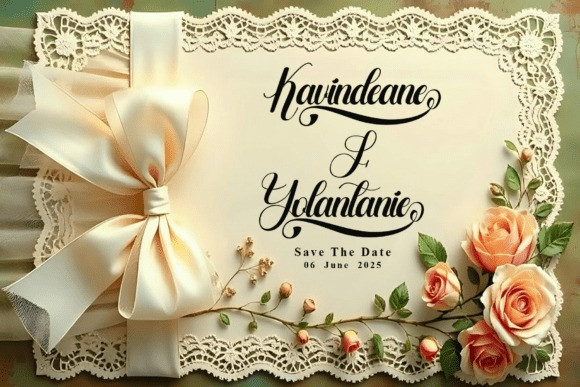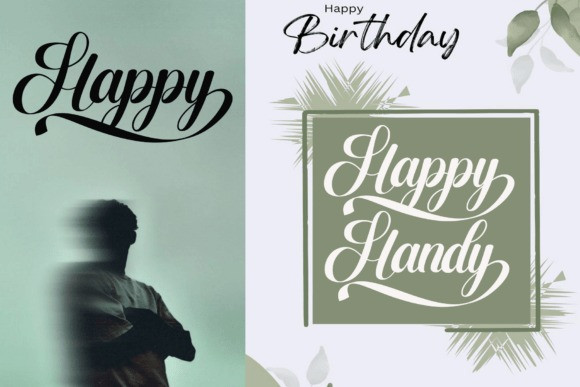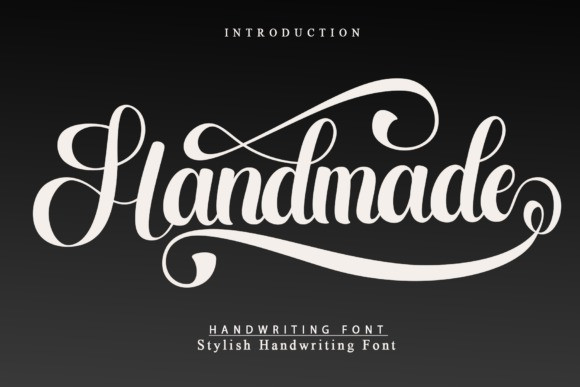
Handmade Script Type
Handmade Script Type is a beautifully flowing script font that radiates charm and sophistication. With smooth curves and a handwritten feel, it’s perfect for wedding invitations, personal branding, elegant packaging, and romantic quotes.